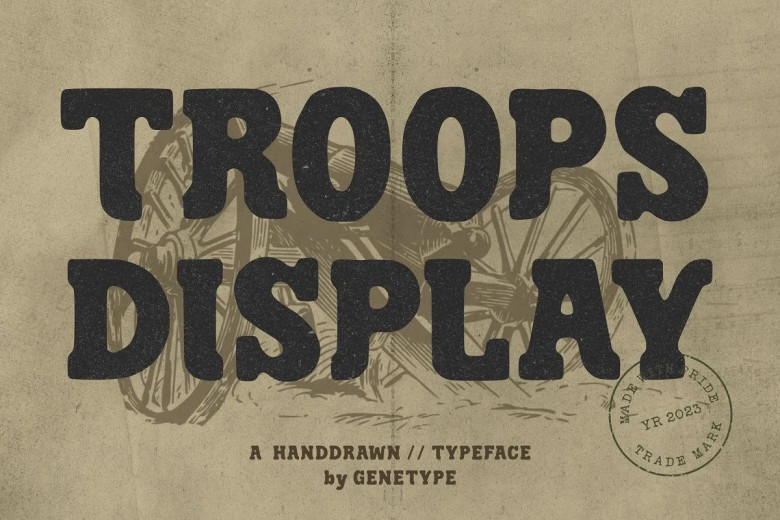
Troops Display Font
Troops Display font seamlessly marries traditional aesthetics with modern flair, drawing inspiration from its rugged appeal of years past. A slab serif typeface, “Troops Display” offers distinct character and strength in each typeface – whether used for striking headlines or marketing initiatives, its ragged lines and distinct serifs stand out against competing styles and endure over time. Take advantage of its history through typography by exploring “Troops Display”, leaving lasting impressions!